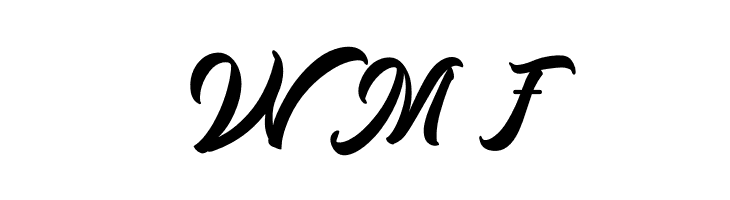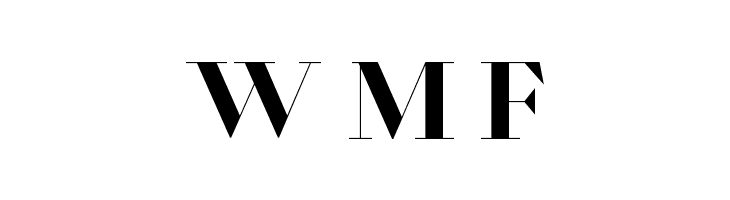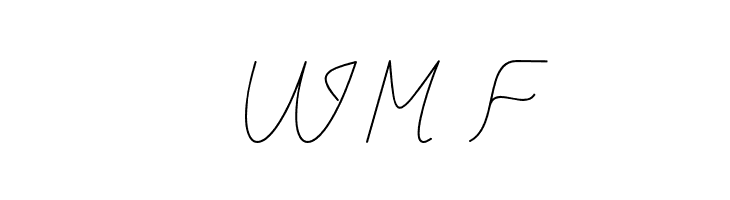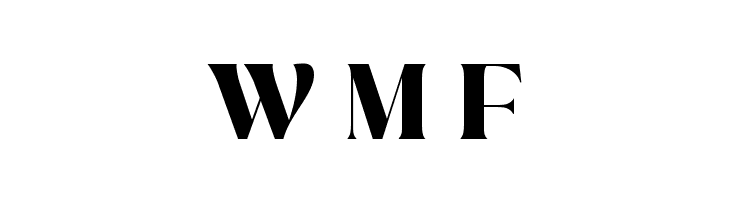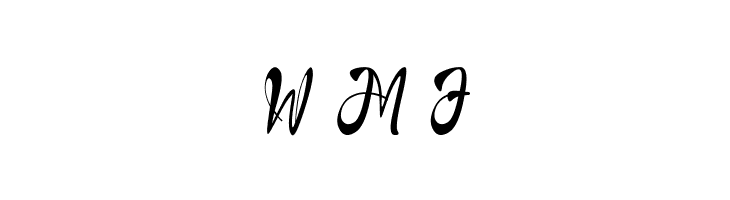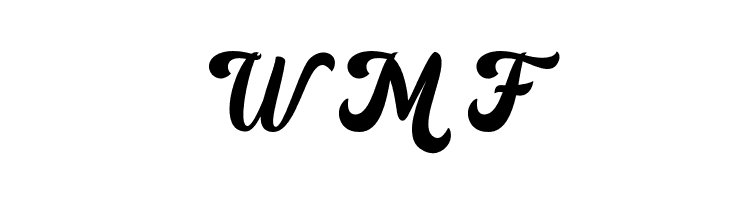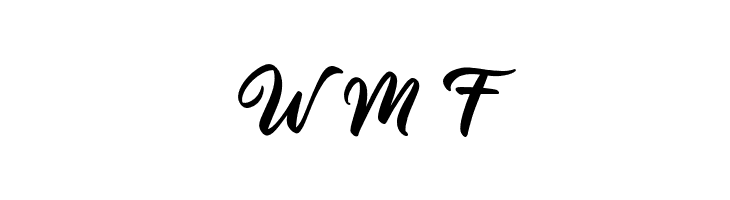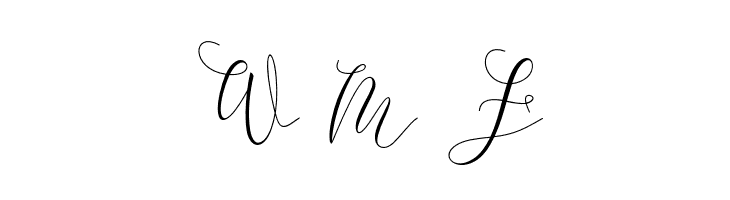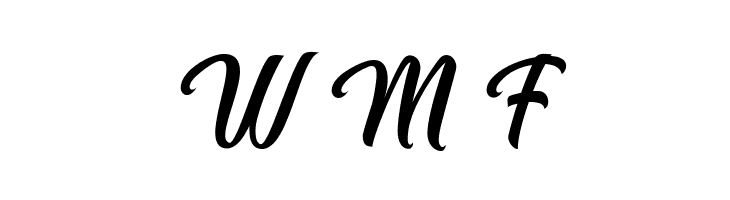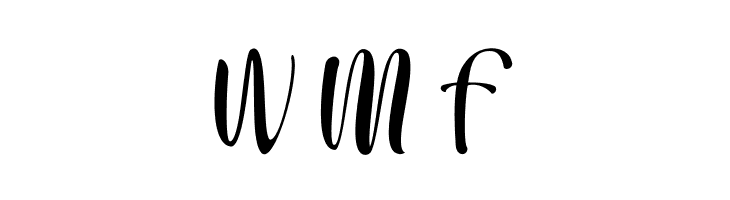
A modern, hollow, inverse font with bold outlines and smooth, rounded edges.
A bold, flowing script font with elegant and playful characteristics.
A bold, dynamic font with a halftone effect and slanted characters, perfect for modern designs.
A modern serif font with high contrast and elegant serifs.
A modern, decorative font with flowing curves and sharp edges, perfect for artistic projects.
An elegant, flowing script font with a refined, handwritten style.
An elegant script font with flowing, interconnected letters and sophisticated style.
A bold, high-contrast font with dramatic curves and a modern classic style.
An elegant, flowing script font with ornate, cursive letterforms.
A bold, retro-inspired cursive font with ornate, flowing characters.
A bold, flowing script font with elegant, connected letterforms.
A flowing, cursive script font with elegant, sweeping curves.
A playful and elegant script font with smooth, flowing curves.
A stylish and elegant script font with flowing, connected letterforms.
A lively and elegant script font with fluid, cursive strokes.
A graceful, handwritten script font with elegant, flowing letters.
A modern, italic font with sleek, angular characters and a dynamic style.
A graceful script font with flowing, calligraphic letters and elegant flourishes.
A bold, expressive script font with flowing, cursive letters and elegant style.
A bold, expressive script font with a handwritten style.